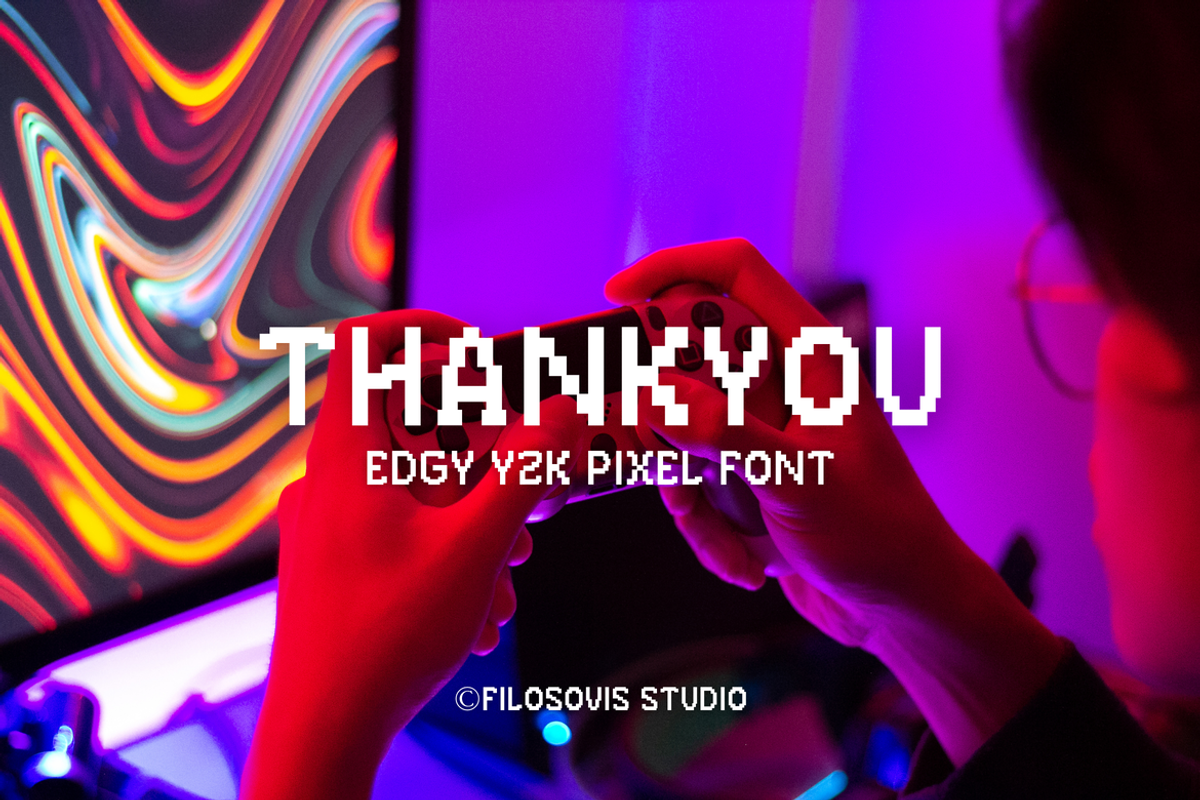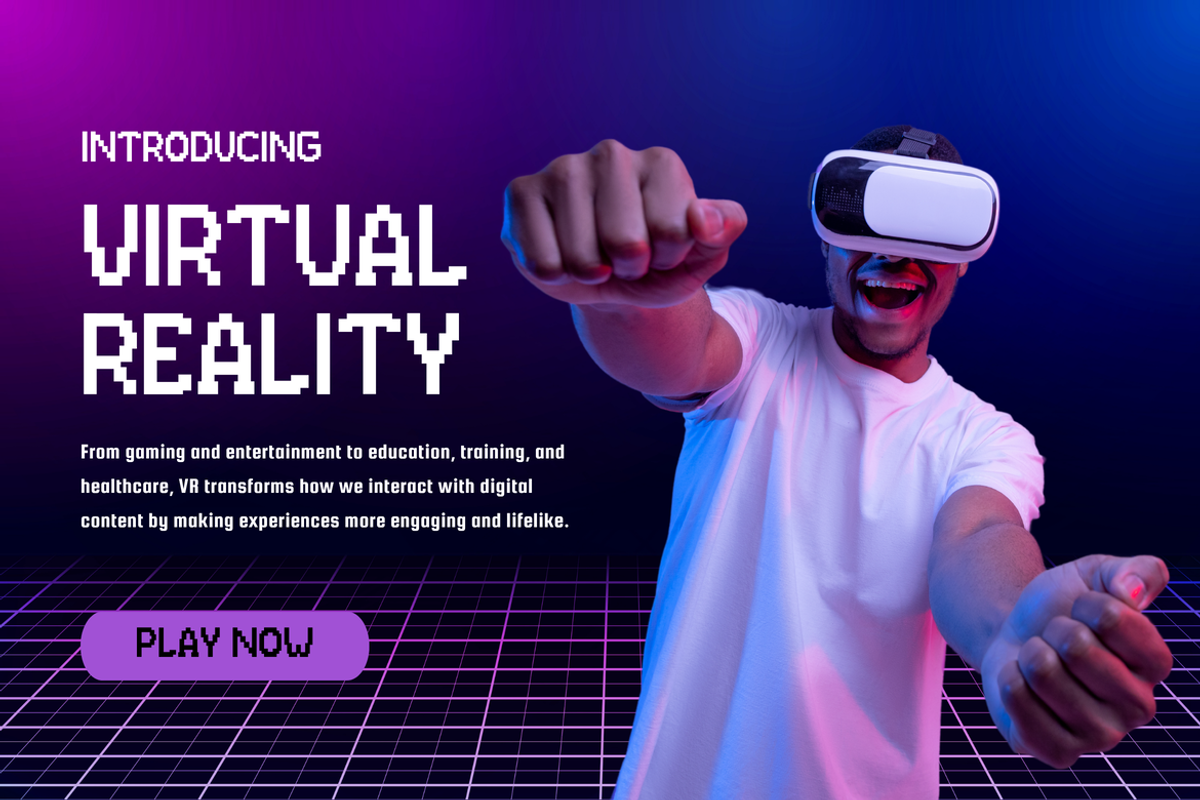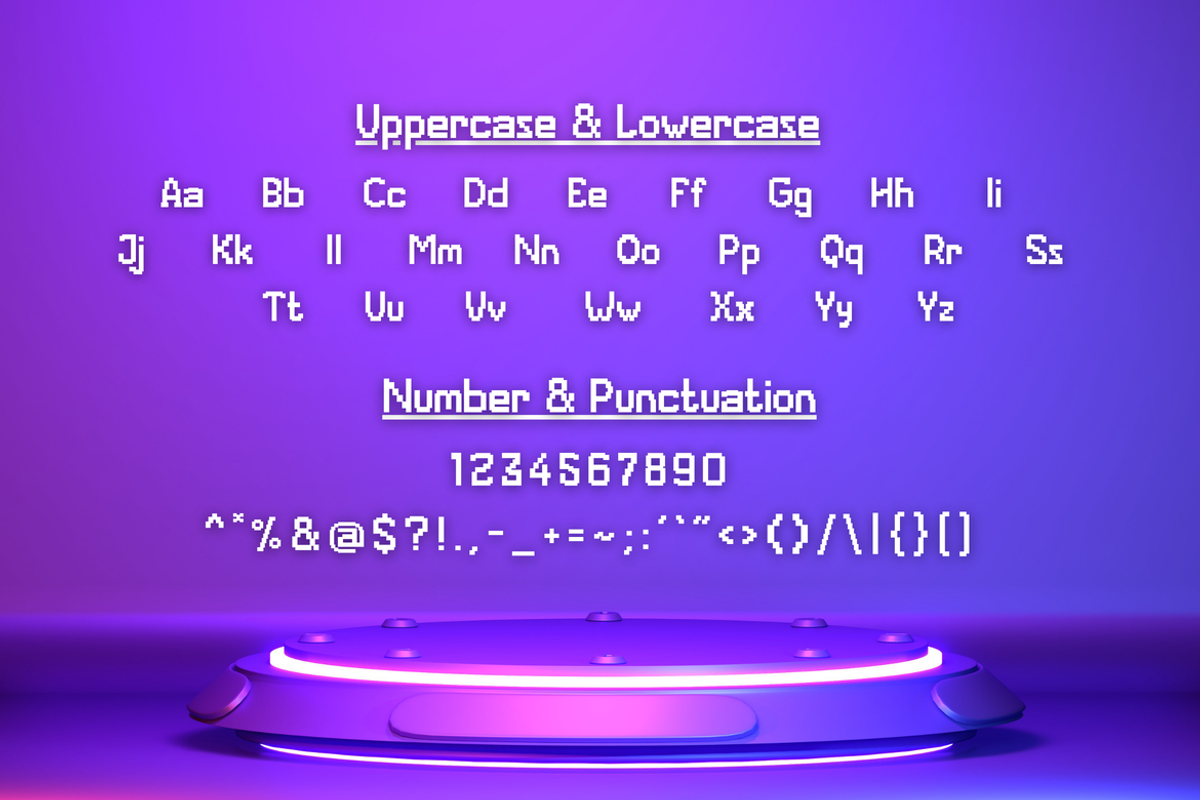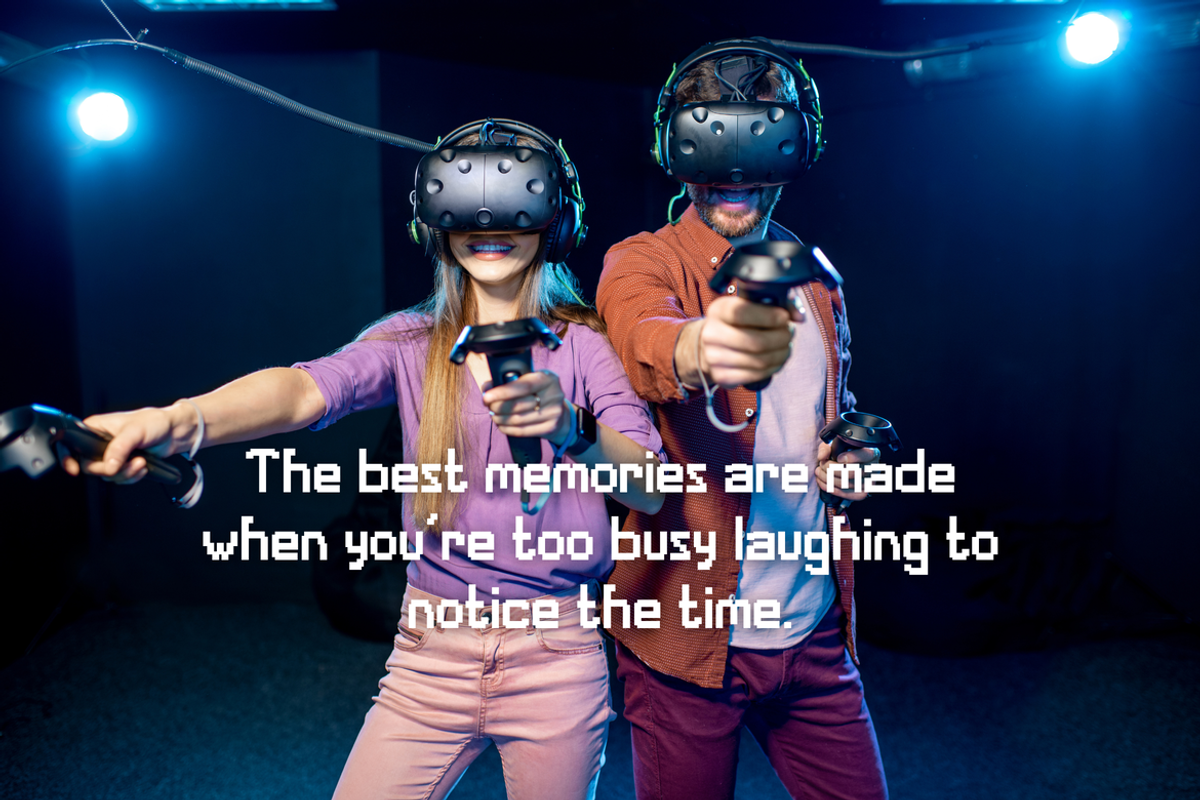
Gimbot | Edgy Y2K Pixel Font
Gimbot is an edgy Y2K-inspired pixel font with a retro, digital style. It features bold, sharp edges and a futuristic feel, perfect for designs with a 2000s vibe.